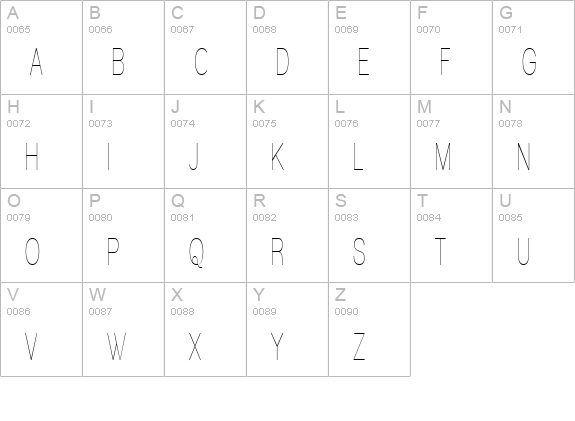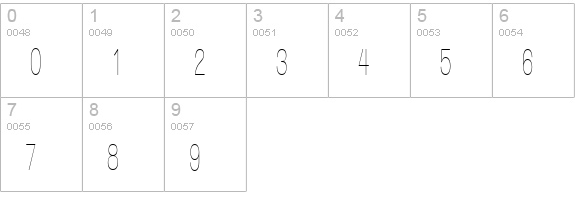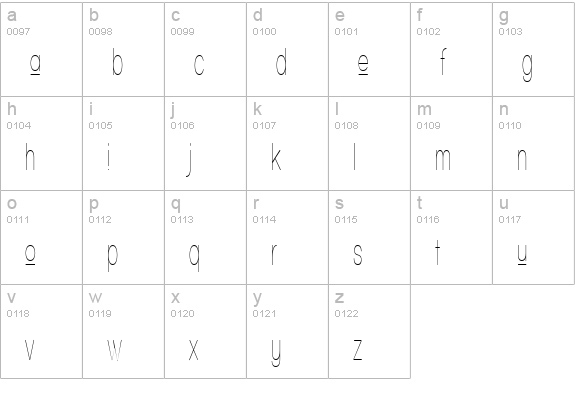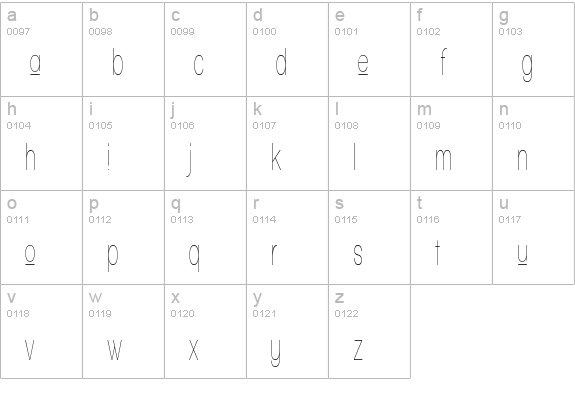
Walkway Upper UltraCondensed is a sleek and modern font that adds a touch of sophistication to any design project. Its ultra-condensed style makes it perfect for headlines, logos, and branding materials where space is limited but impact is essential. The sharp angles and precise lines of this font give it a futuristic and edgy appearance, making it ideal for projects that require a contemporary aesthetic. Best of all, Walkway Upper UltraCondensed is available for free download at FontsMarket.com. This means you can easily access and use this stylish font in your designs without having to worry about any additional costs. Whether you're working on a personal project or a professional design, Walkway Upper UltraCondensed is a versatile and eye-catching font that is sure to make a statement.